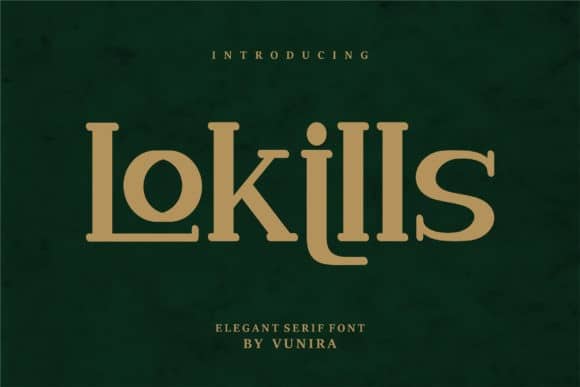
Lokills Serif Font
Lokills Serif Font with Capitals letters and ligatures also complete multilingual glyphs. Lokills feels equally charming and elegant. This stunning serif font is a stylish homage to classic calligraphy. With its neat and beautiful arrangement of letters, this typeface will look outstanding in both formal and non-formal designs.
Lokills come with Regular style, it will make this typeface can be used in all design projects and works perfectly for pairing with script typeface or handmade fonts, Headlines, Posters, Packaging, T-shirts, Postcards, Invitation, Wedding Sign, Sign Painting, Signboard, and much more.